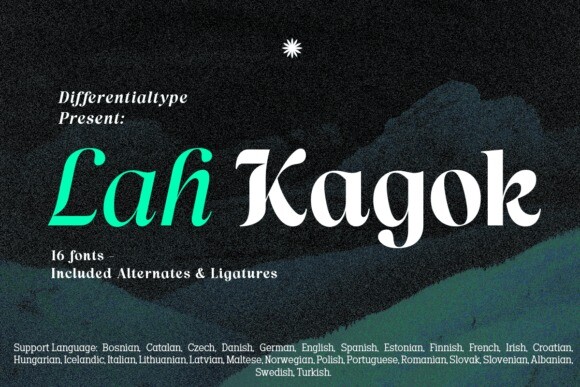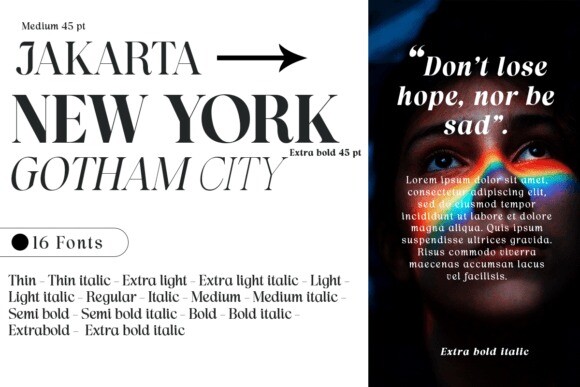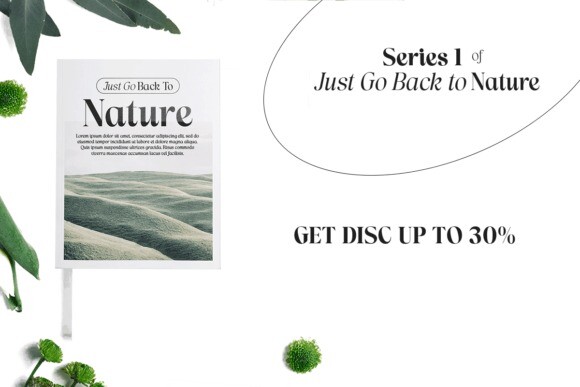
Lah Kagok Font
Lah Kagok Font is an elegant and luxurious serif font family that comes with 8 weights and italics. The lowercase is inspired by the italic serif font which is also used for the upright style. This font is equipped with an alternate uppercase with a calligraphy nuance, don’t forget to activate it to add a luxurious and elegant impression to every creative design you make.